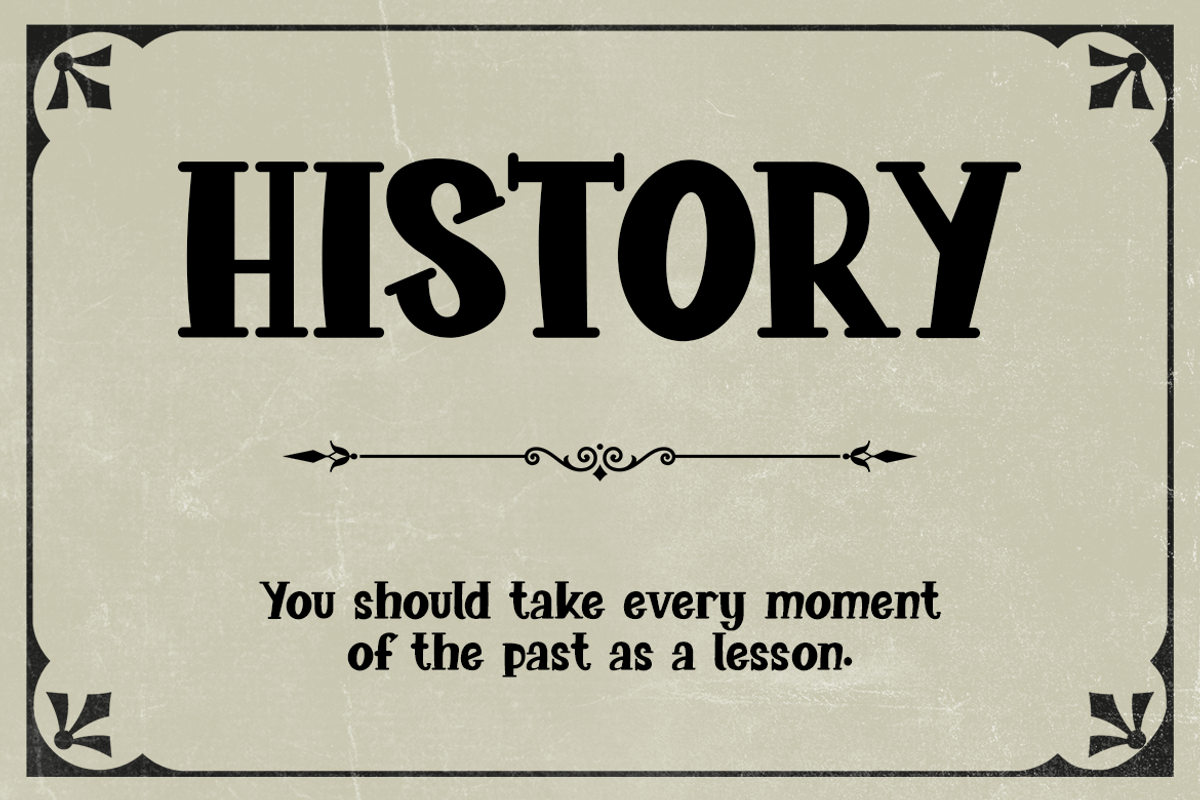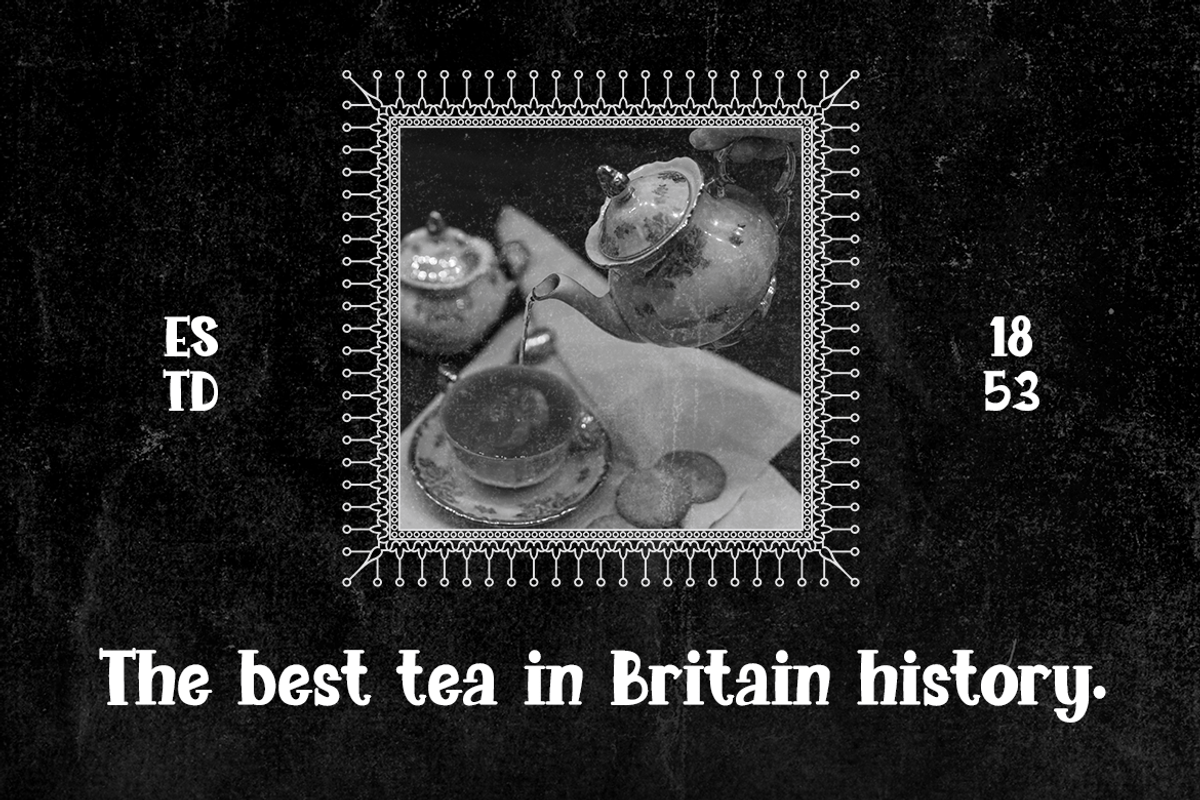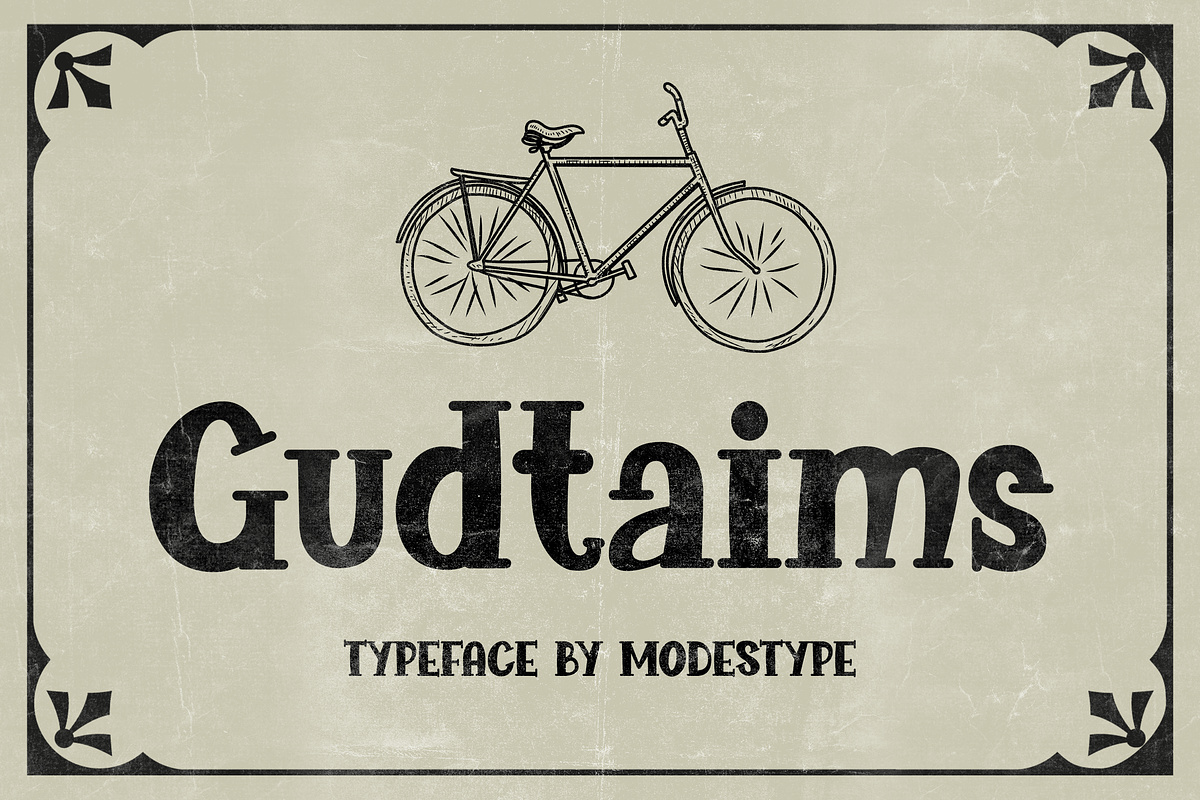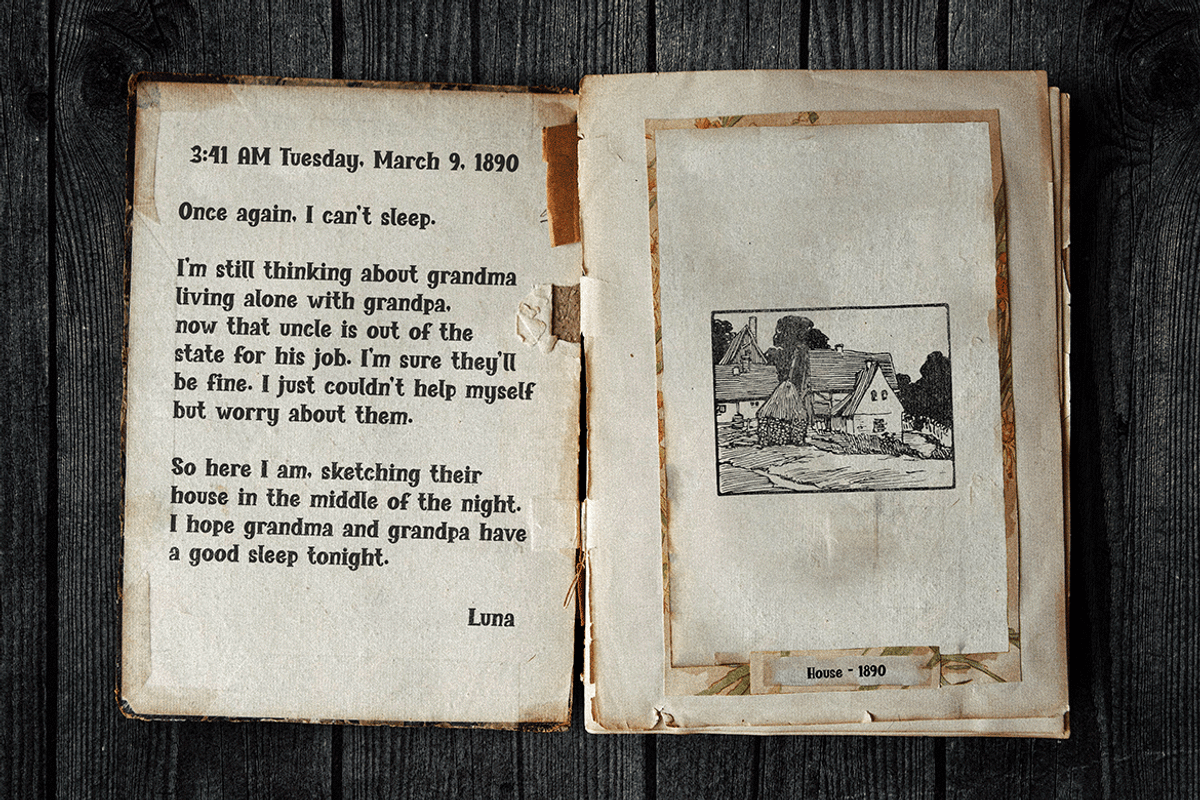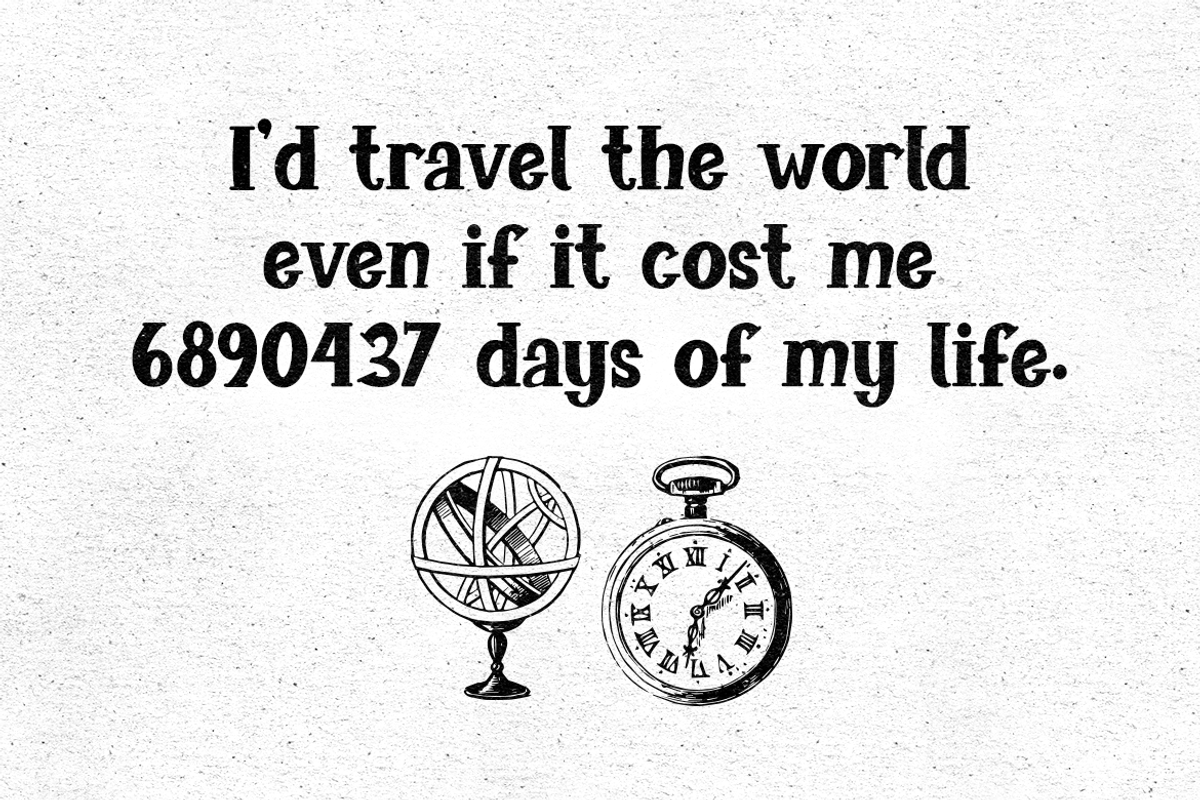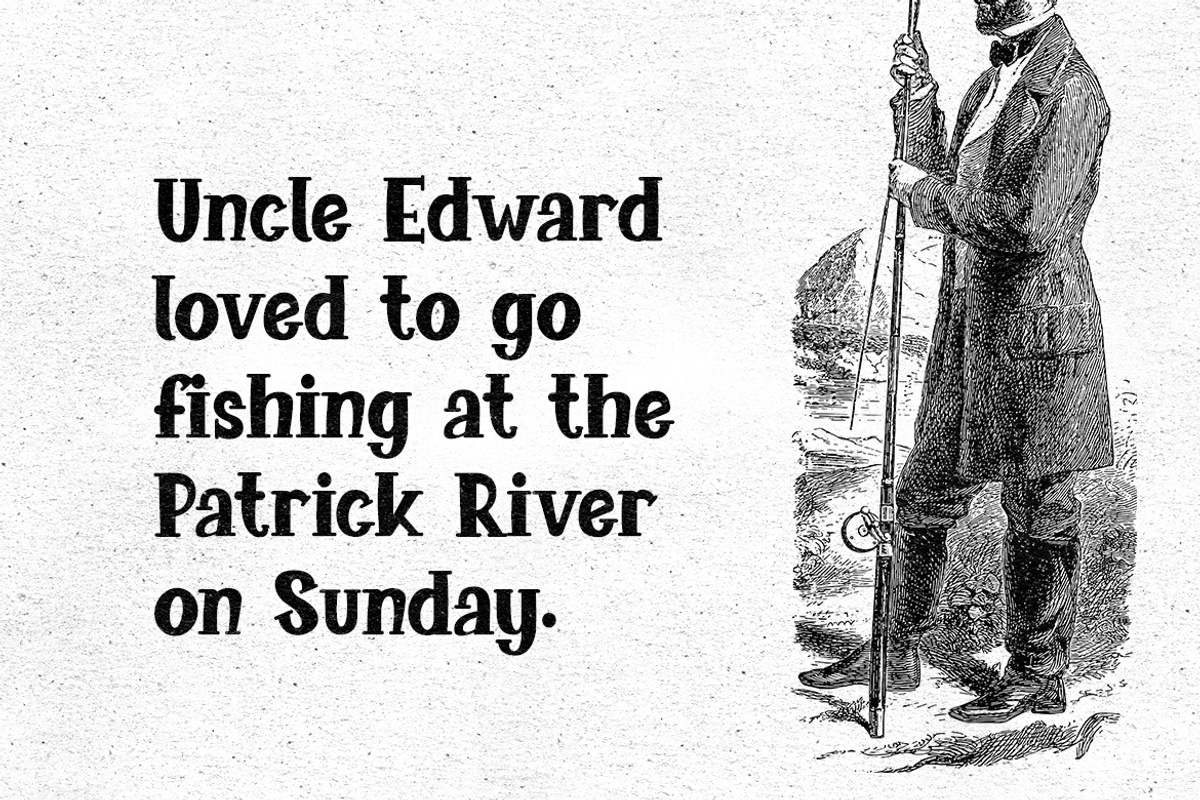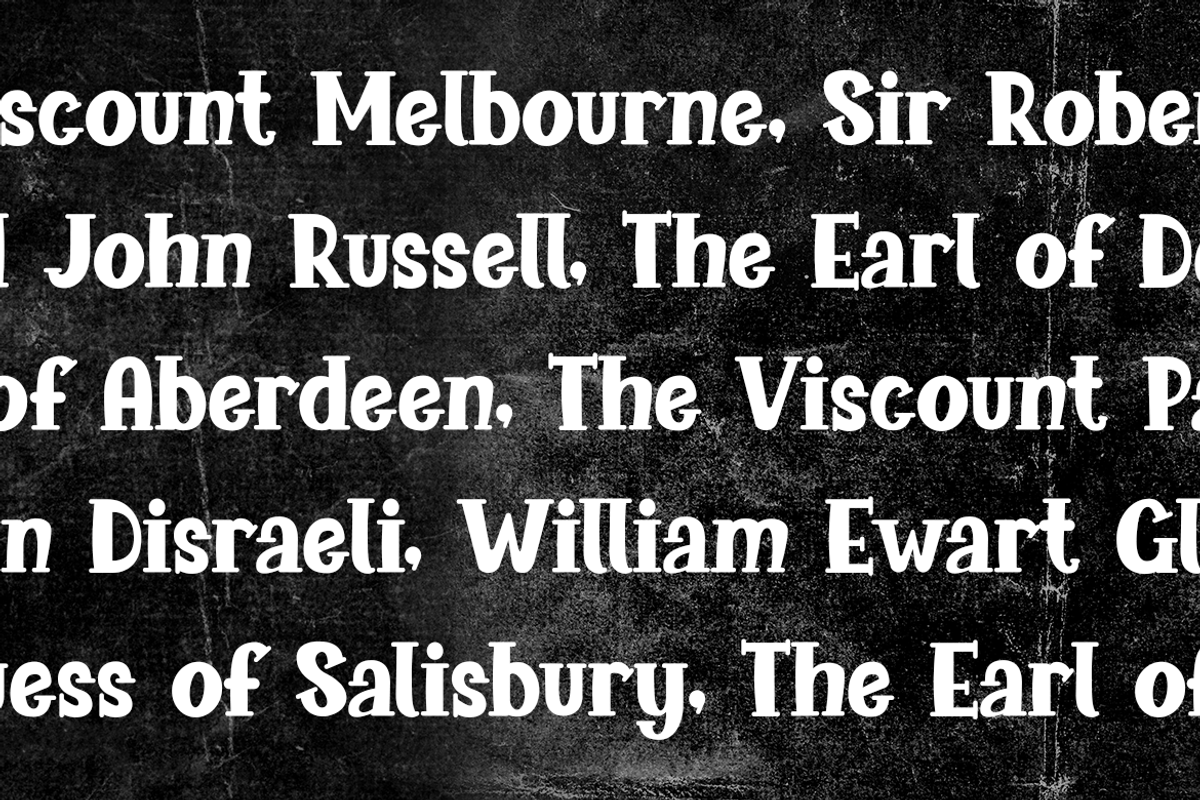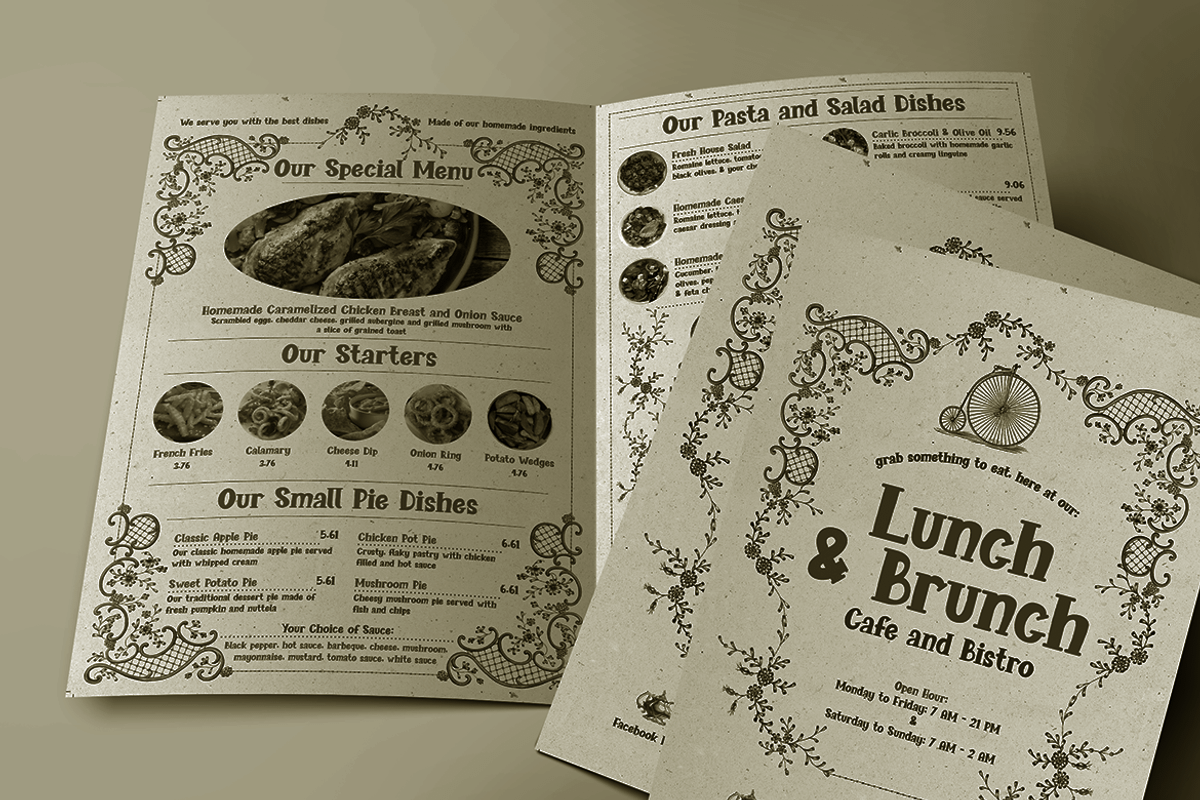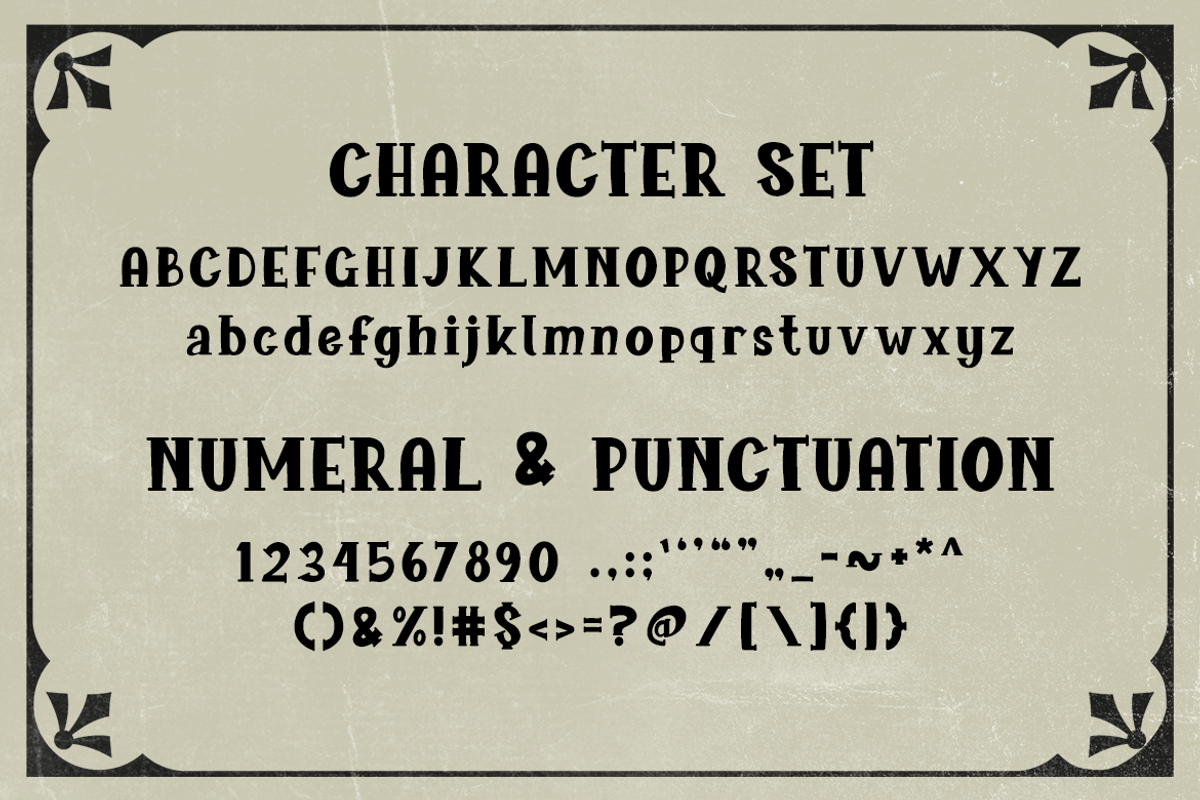
GUDTAIMS - Classic Comic Font
Gudtaims - Classic Comic Font
It's and old era, but it is a great times that put the mark on our history. Gudtaims bring all the classic retro serif styles in a fun way.
Suit perfect for vintage and retro books market, vacation event posters, poster, movie title, youtube covers, youtube thumbnails, social media page covers, and so on...